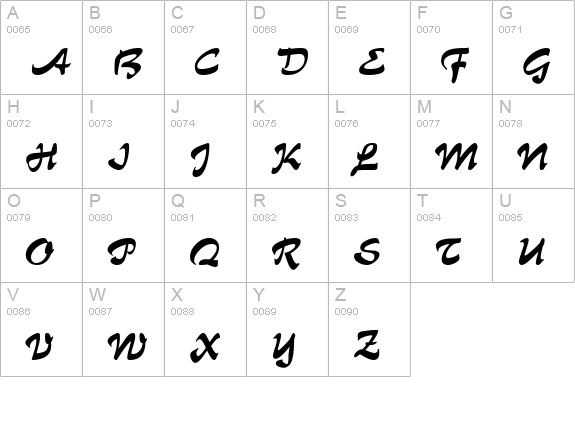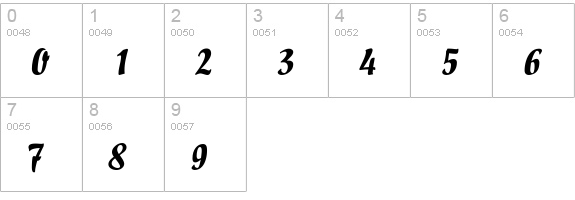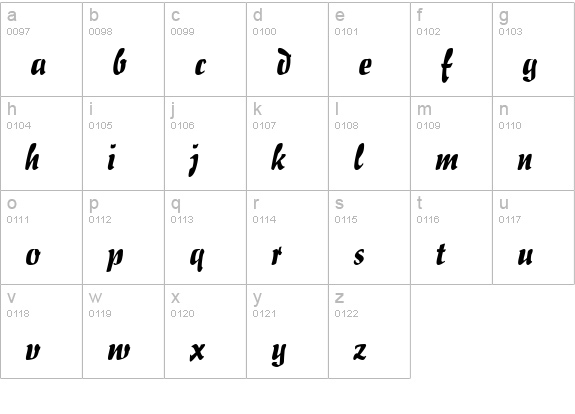
Brush Flair font is a stunning display typeface that exudes creativity and style. With its bold brush strokes and elegant curves, this font is perfect for adding a touch of flair to your designs. Whether you're creating posters, invitations, or social media graphics, Brush Flair will make your text stand out with its unique charm. And the best part? Brush Flair font is completely free to download at FontsMarket.com! You can easily add this eye-catching font to your collection without any cost. Don't miss out on this opportunity to elevate your designs with the beauty of Brush Flair font.